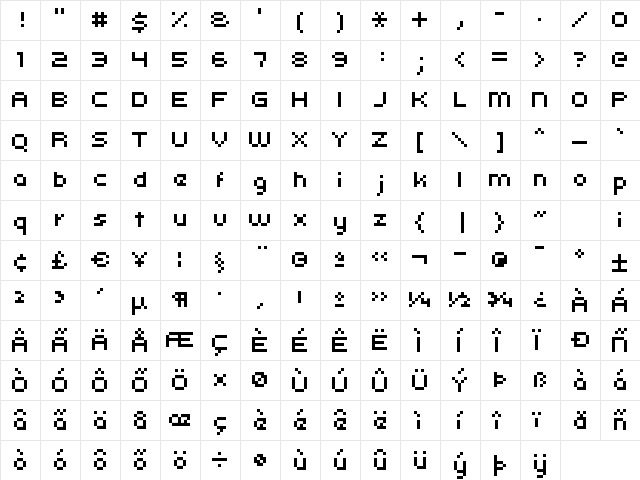
kroeger 05_54 Regular
Design Context for kroeger 05_54 Typeface
kroeger 05_54 takes a measured approach to typography — its balanced proportions and neutral character make it a reliable workhorse for both digital and print work.
Pro Tip: Use kroeger 05_54 in both headline and body roles to test its range before committing to a single application.